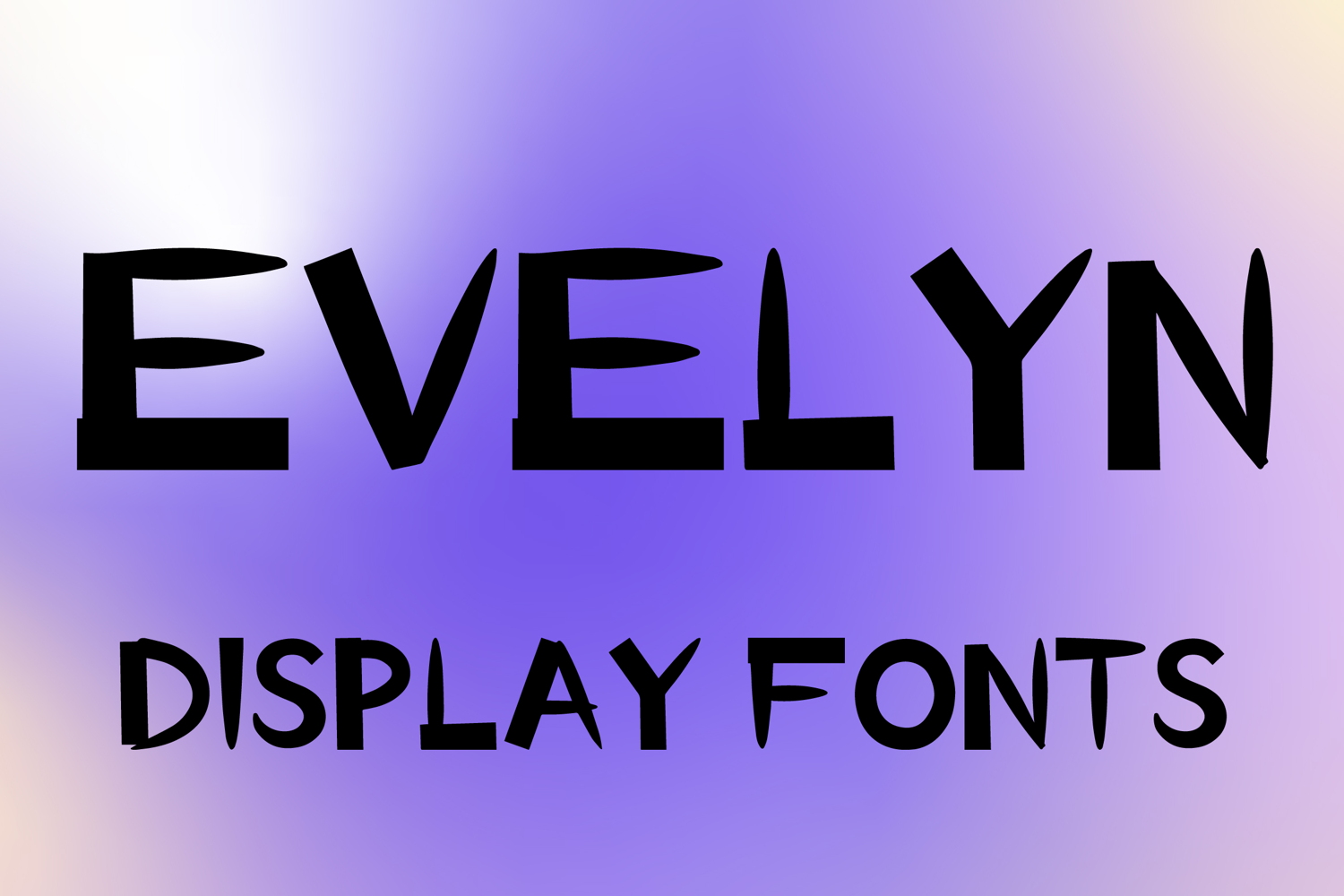
EVELYN
EVELYN is a bold decorative display font with a playful hand-drawn style and strong artistic character. Its uppercase letterforms feature tall narrow shapes, uneven handcrafted edges, and quirky pointed details that create a fun, expressive, and eye-catching look. Designed with uppercase letters A–Z and numbers 0–9, EVELYN is perfect for branding, posters, packaging, logos, headlines, social media graphics, and creative projects that need a unique and memorable statement.